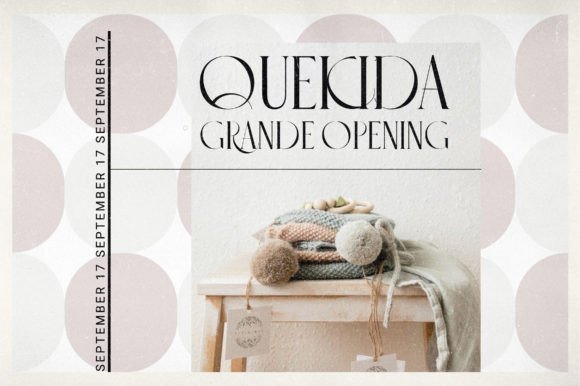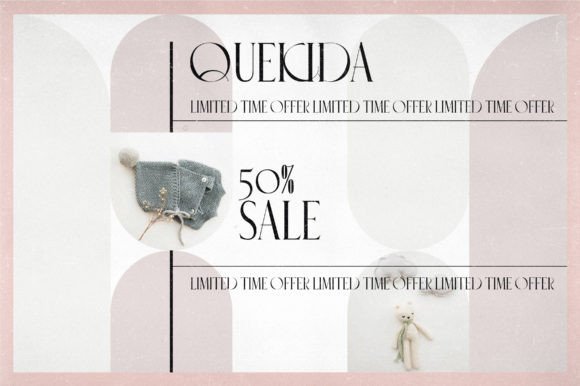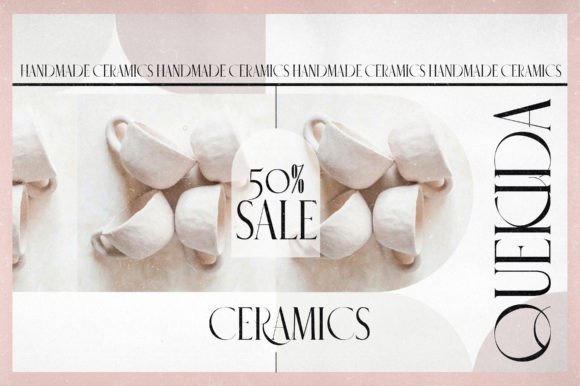
Introduction to Quekida Font
As a designer, you know the feeling of stumbling upon the perfect font for a project – it’s like the entire creative process clicks into place. For me, that moment came when I discovered the Quekida Font. Its elegant and sophisticated design made me think of luxurious packaging and high-end jewelry, and I knew I had to learn more.
With its unique combination of sharp exterior glyph structures and smooth interior spaces, the Quekida Font adds a touch of sophistication to any design project. Whether you’re working on a luxury brand’s packaging or a romantic film title, this font is sure to elevate your design to the next level. And the best part? It’s a high-quality design resource that’s available for free download, making it a valuable asset for any creative project.
Key Features of Quekida Font
- High-quality, professional design ideal for creative projects and presentations.
- Quekida Font features a transparent background, allowing for seamless integration into any design project.
- Unique characteristics include its modern, elegant aesthetic and extensive character set, making it suitable for a wide range of creative projects.
Honest Review: Quekida Font
I recently had the chance to work with the Quekida Font for a creative project, and I must say it’s been a great addition to my design resource library. One of the things that stands out about this font is its versatility. It works well in a variety of contexts, from body text to headings. ✨
- High-quality typography
- Translucent background for seamless integration
One thing to note is that the Quekida Font does come with some limitations. For instance, it’s not ideal for large-scale text, as it can become difficult to read. ⚠️ Additionally, some users have reported issues with font consistency across different platforms. ⚠️
Overall, I’m quite impressed with the Quekida Font. Its high-quality typography and transparent background make it a great choice for designers looking to add some flair to their creative projects. While it may not be perfect, it’s definitely a valuable addition to any design resource library. If you’re looking for a free font that’s both stylish and functional, the Quekida Font is definitely worth checking out.
Tips for Getting the Most Out of Quekida Font
Use Quekida Font with a transparent background to create a clean and modern design. Experiment with different font sizes and styles to create a unique look. Use the font in combination with other design elements to create a cohesive design.
Common Use Cases for Quekida Font
Quekida Font is a versatile font that can be used in various design projects, including logos, brochures, business cards, and website designs. It is a great font to use for creative projects that require a high-quality and professional look.